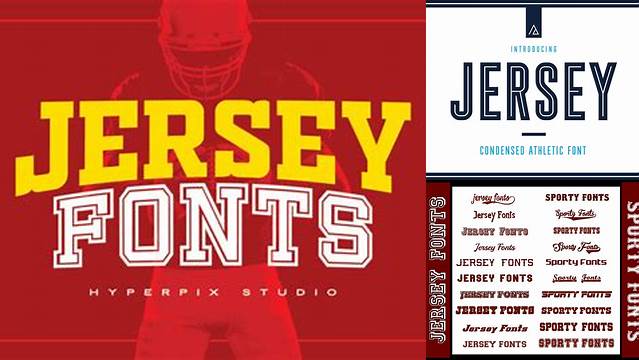
1. Best Free Jersey Fonts for Cricut
Alright guys, let’s dive into the world of free jersey fonts perfect for your Cricut projects! Finding the right font can really make your designs pop, especially when you’re personalizing jerseys, t-shirts, or even banners for your favorite sports team. When you are on the hunt for free jersey fonts, consider factors like readability, style, and whether the font includes all the characters you need. Many designers offer amazing fonts that capture the essence of athletic aesthetics without costing you a dime. Websites dedicated to free fonts often have a wide selection, but be sure to check the license terms before using them for commercial projects. Some fonts are free for personal use only, while others allow commercial use. Experimenting with different free jersey fonts can help you discover the perfect one that resonates with your creative vision. Don’t be afraid to mix and match styles to achieve a unique and personalized look. Using free jersey fonts means you can create stunning, professional-looking designs without breaking the bank. Whether you're crafting gifts, team apparel, or just expressing your sporty side, these fonts are an excellent resource. So get those Cricut machines fired up and let your imagination run wild with the plethora of free jersey fonts available at your fingertips!
2. Top 10 Free Jersey Number Fonts
Looking for the top 10 free jersey number fonts to give your designs that authentic athletic look? Well, you're in luck! Plenty of amazing fonts are available that perfectly mimic the style of traditional sports jerseys. These fonts often feature bold, blocky designs that are easy to read from a distance, making them ideal for jerseys, posters, and other sports-related projects. When selecting from the top 10 free jersey number fonts, consider the overall aesthetic you're aiming for. Do you want something classic and timeless, or something more modern and edgy? Many websites offer previews of the fonts, allowing you to see how they look with different numbers and letters. Also, be sure to check the licensing terms to ensure you can use the fonts for your intended purpose. Some fonts may be free for personal use only, while others allow commercial use. Some of the top 10 free jersey number fonts include options with rounded edges for a softer look, as well as fonts with sharp, angular lines for a more aggressive feel. Don't hesitate to download a few different fonts and experiment to see which one best suits your project. With a little bit of searching, you're sure to find the top 10 free jersey number fonts that will give your designs the perfect touch of sporty authenticity. Enjoy exploring all the possibilities and creating eye-catching designs with these fantastic fonts!
3. Free Varsity Fonts for Jersey Design
When it comes to free varsity fonts for jersey design, you’ve got a fantastic array of options that can add a classic, sporty touch to your projects. Varsity fonts are characterized by their bold, block-like appearance, often with serifs or slab serifs that enhance their vintage feel. These fonts are perfect for creating designs that evoke the spirit of high school and college athletics. Finding free varsity fonts means you can achieve a professional look without spending a fortune. Many websites offer a variety of varsity fonts that you can download and use for personal or commercial projects, but always double-check the licensing terms to be sure. When selecting from the free varsity fonts available, think about the overall style you want to achieve. Do you want a font that is clean and modern, or something with a more distressed, retro vibe? Consider the colors you'll be using in your design as well, as some fonts may look better with certain color combinations. It’s also a good idea to test out the font with different words and phrases to see how it looks at various sizes. Using free varsity fonts is a great way to add a touch of nostalgia and athletic flair to your jersey designs. So, explore the available options, experiment with different styles, and create something truly unique!
8. Using Jersey Fonts in Photoshop
Using jersey fonts in Photoshop can really make your designs pop! Whether you're creating sports posters, customizing team logos, or designing apparel mockups, the right font can give your work that authentic athletic look. First things first, make sure you've downloaded and installed your free jersey fonts on your computer. Once they're installed, Photoshop should automatically recognize them. To use the fonts, open Photoshop and create a new document or open an existing one. Select the Type Tool (the “T” icon) and click on your canvas to create a text layer. Then, in the Character panel (Window > Character), you can choose your jersey font from the font dropdown menu. If you don't see the font, try restarting Photoshop; sometimes it needs a little nudge to recognize newly installed fonts. Experiment with different font sizes, colors, and styles to get the perfect look for your design. You can also add effects like drop shadows, strokes, and gradients to further enhance your text. Another cool trick is to use layer masks and clipping masks to integrate your text with other elements in your design. This can create some really awesome and dynamic effects. With the right free jersey fonts and a little bit of creativity, you can create stunning sports-themed designs in Photoshop that will impress everyone!
9. Using Jersey Fonts in Illustrator
Using jersey fonts in Illustrator is a fantastic way to add a sporty and dynamic feel to your designs. Whether you're creating logos, posters, or apparel graphics, the right font can make all the difference. First, make sure you have downloaded and installed your free jersey fonts on your computer. Once installed, Illustrator should automatically recognize them. To use the fonts, open Illustrator and create a new document or open an existing one. Select the Type Tool (the “T” icon) and click on your artboard to create a text object. Then, in the Character panel (Window > Type > Character), you can choose your jersey font from the font dropdown menu. If you don't see the font, try restarting Illustrator; sometimes it needs a little refresh to recognize newly installed fonts. With Illustrator, you have a lot of flexibility in how you can manipulate your text. You can easily change the font size, color, and spacing to achieve the perfect look. You can also use the Create Outlines feature (Type > Create Outlines) to convert your text into vector shapes. This allows you to further customize the text by editing the individual points and curves. You can add gradients, patterns, and effects to your text to make it even more visually appealing. Using free jersey fonts in Illustrator opens up a world of possibilities for creating unique and eye-catching sports-themed designs!
10. Best Jersey Font Generators Online
When you're looking to whip up some cool jersey designs quickly, the best jersey font generators online can be a real lifesaver. These tools let you create custom text with a sporty, athletic vibe without needing to install any fonts on your computer. Many free jersey fonts generators offer a range of styles, from classic varsity looks to more modern, edgy designs. Some generators even allow you to customize the colors, sizes, and spacing of the letters, giving you a lot of control over the final result. To use a jersey font generator, simply visit the website, type in your text, and choose your desired font style and settings. The generator will then create an image of your text, which you can download and use in your designs. While these generators are convenient, keep in mind that the quality and variety of fonts may vary. Some generators may offer only a limited selection of fonts, and the output may not be as high-resolution as using a dedicated font in design software like Photoshop or Illustrator. However, for quick mockups and social media graphics, the best jersey font generators online can be a great option. So, if you need to create a jersey-inspired design in a hurry, give one of these generators a try and see what you can come up with!
11. Free Distressed Jersey Fonts
For those seeking a vintage, worn-in aesthetic, free distressed jersey fonts are an excellent choice. These fonts mimic the look of aged and weathered lettering, adding character and authenticity to your designs. Distressed fonts are perfect for creating a retro sports vibe or adding a touch of grunge to your projects. Finding free distressed jersey fonts is easier than you might think. Many websites offer a variety of fonts with varying degrees of distress, from subtle textures to more pronounced cracks and fading. When selecting a distressed font, consider the overall style you want to achieve. A lightly distressed font can add a subtle touch of character, while a heavily distressed font can create a more dramatic, vintage look. Also, think about the colors you'll be using in your design. Distressed fonts often look great with muted or earthy tones, which enhance the vintage feel. It's also a good idea to test out the font with different words and phrases to see how the distress effects look at various sizes. Using free distressed jersey fonts is a fantastic way to add a unique and eye-catching element to your jersey designs. So, explore the available options, experiment with different styles, and create something truly memorable!
12. Modern Free Jersey Fonts
If you're aiming for a sleek and contemporary look, modern free jersey fonts are the way to go. These fonts offer a fresh take on the classic athletic aesthetic, with clean lines, geometric shapes, and a minimalist feel. Modern jersey fonts are perfect for creating designs that are both sporty and stylish. Finding modern free jersey fonts allows you to achieve a cutting-edge look without spending a fortune. Many websites offer a variety of fonts that capture the essence of modern design. When selecting a modern font, consider the overall style you want to achieve. Do you want a font that is bold and impactful, or something more subtle and understated? Think about the colors you'll be using in your design as well, as some fonts may look better with certain color combinations. It's also a good idea to test out the font with different words and phrases to see how it looks at various sizes. Using modern free jersey fonts is a great way to add a touch of sophistication and contemporary flair to your jersey designs. So, explore the available options, experiment with different styles, and create something truly unique!
13. How to Customize Free Jersey Fonts
Customizing free jersey fonts is a great way to make your designs truly unique. While you might start with a free font, tweaking it to fit your specific needs can elevate your work to the next level. One of the easiest ways to customize a font is to adjust its size, spacing, and color. Most design software, like Photoshop and Illustrator, allows you to easily modify these properties. You can also add effects like drop shadows, outlines, and gradients to further enhance the look of the font. For more advanced customization, you can convert the font into vector outlines. This allows you to edit the individual shapes and curves of the letters, giving you complete control over the design. You can reshape the letters, add new elements, or even combine different fonts to create a completely custom typeface. However, keep in mind that modifying a font too much can sometimes affect its readability. So, it's important to strike a balance between customization and functionality. Using free jersey fonts as a starting point and then customizing them to your liking is a fantastic way to create a personalized and professional look for your designs!
14. Free Jersey Fonts for Commercial Use
Finding free jersey fonts for commercial use can be a game-changer for designers and businesses. Using fonts without the proper license can lead to legal trouble, so it's essential to ensure that the fonts you use are indeed free for commercial purposes. Many websites offer free jersey fonts, but not all of them allow commercial use. Always check the license agreement before using a font in a project that you intend to sell or use for business purposes. Some fonts may be free for personal use only, while others allow commercial use with certain restrictions. Some common types of licenses for free jersey fonts include the SIL Open Font License (OFL) and Creative Commons licenses. The OFL allows you to use, modify, and distribute the font freely, even for commercial purposes. Creative Commons licenses may have different terms, so be sure to read the specific license agreement for each font. When in doubt, it's always best to contact the font designer or website to clarify the terms of use. Using free jersey fonts for commercial use can save you money and allow you to create professional-quality designs without worrying about copyright issues!
15. Free Jersey Fonts for Personal Use
When you're working on personal projects, finding free jersey fonts for personal use is a fantastic way to add a sporty touch to your creations without breaking the bank. Personal use fonts are typically free to download and use for non-commercial purposes, such as creating invitations, posters, or gifts for friends and family. Many websites offer a wide variety of free jersey fonts that are perfect for personal use. These fonts can range from classic varsity styles to more modern and unique designs. When downloading fonts for personal use, it's still important to check the license agreement. Some fonts may have restrictions on how you can use them, even for personal projects. For example, some fonts may not allow you to modify or redistribute them. However, most free jersey fonts for personal use are fairly flexible and can be used in a wide range of projects. So, if you're looking to add a sporty and personalized touch to your next creative endeavor, be sure to explore the many options available for free!
16. Best Practices for Using Jersey Fonts
Using jersey fonts effectively can really elevate your designs, but there are some best practices to keep in mind. First and foremost, consider the readability of the font. While some free jersey fonts may look cool and stylish, they might not be the easiest to read, especially at smaller sizes. Choose a font that is clear and legible, even from a distance. Another important factor is the context of your design. A jersey font that looks great on a sports poster might not be the best choice for a formal invitation. Think about the overall tone and message of your design and choose a font that complements it. Also, pay attention to the spacing and kerning of the font. Adjusting the spacing between letters can significantly improve readability and visual appeal. Avoid using too many different fonts in a single design. Sticking to two or three complementary fonts can create a more cohesive and professional look. Finally, always respect the font's license agreement. Make sure you have the right to use the font for your intended purpose, whether it's for personal or commercial use. By following these best practices, you can ensure that your jersey fonts look their best and effectively communicate your message!
17. Pairing Jersey Fonts with Other Fonts
Pairing jersey fonts with other fonts can be a fun way to create unique and visually appealing designs. The key is to find fonts that complement each other and create a harmonious balance. Since jersey fonts often have a bold and sporty feel, it's a good idea to pair them with fonts that are more subtle and understated. For example, you could pair a classic varsity font with a clean sans-serif font for a modern and balanced look. Another approach is to use a serif font for headings and a sans-serif font for body text. This can create a clear visual hierarchy and improve readability. When pairing jersey fonts with other fonts, consider the overall style and tone of your design. If you're creating a vintage-inspired design, you might want to pair a distressed jersey font with a classic serif font. If you're creating a more modern design, you could pair a sleek sans-serif jersey font with a minimalist sans-serif font. Experiment with different font combinations to see what works best for your project. Don't be afraid to try unexpected pairings, but always make sure that the fonts are visually compatible and create a cohesive look. Finding the right font pairings can take your designs to the next level!
18. Jersey Fonts for Team Logos
When designing team logos, the right font can make all the difference. Jersey fonts are a popular choice for team logos because they convey a sense of athleticism, tradition, and camaraderie. A well-chosen font can help to create a logo that is both memorable and effective. When selecting jersey fonts for team logos, consider the overall style and personality of the team. A classic varsity font might be a good choice for a traditional sports team, while a more modern and edgy font might be better suited for a team with a more contemporary image. It's also important to consider the readability of the font. The logo should be easily recognizable, even at small sizes. Choose a font that is clear and legible, and avoid using overly complex or decorative fonts. In addition to the font itself, the colors and layout of the logo can also play a significant role in its success. Use colors that are consistent with the team's brand and create a layout that is visually appealing and easy to understand. By carefully considering these factors, you can create a team logo that is both professional and memorable.
19. Jersey Fonts for Sports Apparel
Jersey fonts for sports apparel are a crucial element in creating visually appealing and professional-looking uniforms. The right font can enhance the overall design and make the apparel stand out. When selecting jersey fonts, it's important to consider the readability, durability, and style of the font. The font should be easy to read from a distance, even when printed on fabric. It should also be durable enough to withstand repeated washing and wearing. In terms of style, the font should complement the overall design of the apparel and reflect the team's identity. Classic varsity fonts are a popular choice for sports apparel, but there are also many other options to choose from, including modern sans-serif fonts and distressed fonts. It's also important to consider the size and placement of the font on the apparel. The font should be large enough to be easily visible, but not so large that it overwhelms the design. The placement of the font should also be strategic, taking into account the overall layout of the apparel. By carefully considering these factors, you can create sports apparel that is both functional and visually appealing.
20. Free Jersey Fonts for Numbers and Letters
When you're on the hunt for free jersey fonts for numbers and letters, you want to make sure you find options that are both stylish and easy to read. After all, whether you're designing a sports team's jerseys or creating personalized gifts, the font you choose can make all the difference. Luckily, there are plenty of free resources available that offer a variety of jersey-style fonts suitable for both numbers and letters. One thing to keep in mind when selecting a font is its legibility. While some fonts may look cool and trendy, they might not be the best choice if they're difficult to read, especially from a distance. Opt for fonts that have clear, well-defined shapes and consistent spacing between characters. Another factor to consider is the overall aesthetic of the font. Do you want something classic and traditional, or something more modern and edgy? There are free jersey fonts to suit every taste, so take your time and explore your options. Some fonts may be specifically designed for numbers, while others are better suited for letters. Look for fonts that offer a consistent style across both numbers and letters to ensure a cohesive and professional look. With a little bit of searching, you can find the perfect free jersey fonts for numbers and letters to bring your designs to life!
21. How to Create Your Own Jersey Font
If you're feeling creative, why not try to create your own jersey font? While it may seem like a daunting task, with the right tools and techniques, it's definitely achievable. Creating your own font allows you to express your unique style and create designs that are truly one-of-a-kind. The first step is to choose a font creation software. There are many options available, ranging from free open-source programs to professional-grade software. Once you have your software set up, you can start designing the individual characters of your font. Start with the basic letters and numbers, and then move on to more complex characters and symbols. Pay attention to the spacing and kerning between characters to ensure that the font is easy to read. You can also experiment with different styles and effects to give your font a unique look. Once you're satisfied with your design, you can export the font in a format that can be used in design software like Photoshop and Illustrator. Creating your own free jersey fonts can be a challenging but rewarding experience. It allows you to unleash your creativity and create designs that are truly your own!
22. The Psychology of Jersey Fonts in Design
Ever thought about the psychology of jersey fonts in design? It's more than just picking something that looks cool! The font you choose can actually influence how people perceive your design and the message it conveys. Jersey fonts, with their bold and sporty aesthetic, often evoke feelings of energy, excitement, and teamwork. They can create a sense of nostalgia and connect with people's memories of sports and athletic achievements. When used in the right context, jersey fonts can be incredibly effective in capturing attention and creating a strong emotional connection with the audience. However, it's important to consider the overall tone and message of your design when choosing a font. A jersey font might not be the best choice for a formal or elegant design, as it can come across as too casual or informal. On the other hand, it can be perfect for designs that are meant to be fun, energetic, and engaging. The psychology of jersey fonts in design is all about understanding the emotional impact of different fonts and using them strategically to achieve your desired effect. By carefully considering the context and audience of your design, you can choose a font that effectively communicates your message and creates a lasting impression.
23. Common Mistakes to Avoid When Using Jersey Fonts
Using jersey fonts can be a great way to add a sporty and dynamic feel to your designs, but it's important to avoid some common mistakes that can detract from the overall impact. One of the most common mistakes is using too many different fonts in a single design. Sticking to two or three complementary fonts can create a more cohesive and professional look. Another mistake is using jersey fonts in inappropriate contexts. While they're perfect for sports-related designs, they might not be the best choice for more formal or elegant designs. It's also important to pay attention to the readability of the font. Some free jersey fonts may look cool and stylish, but they might not be the easiest to read, especially at smaller sizes. Choose a font that is clear and legible, even from a distance. Another mistake to avoid is using too much ornamentation or effects on the font. Keep it simple and clean to ensure that the font is easy to read and doesn't overwhelm the design. Finally, always respect the font's license agreement. Make sure you have the right to use the font for your intended purpose, whether it's for personal or commercial use. By avoiding these common mistakes, you can ensure that your jersey fonts look their best and effectively communicate your message!
24. The Future of Jersey Fonts in Graphic Design
What does the future of jersey fonts in graphic design hold? As design trends continue to evolve, we can expect to see jersey fonts adapt and innovate in new and exciting ways. One trend that is likely to continue is the use of variable fonts. Variable fonts allow designers to adjust various parameters of the font, such as weight, width, and slant, to create a wide range of styles from a single font file. This can be particularly useful for jersey fonts, as it allows designers to create customized looks that perfectly match the style of their design. Another trend that is likely to influence the future of jersey fonts is the rise of 3D and augmented reality (AR) design. As designers create more immersive and interactive experiences, they will need fonts that can work seamlessly in these environments. This could lead to the development of new jersey fonts that are specifically designed for 3D and AR applications. Finally, we can expect to see more experimentation with unique and unconventional styles. Designers will continue to push the boundaries of what's possible with jersey fonts, creating new and innovative designs that capture the energy and excitement of sports.
25. Resources for Learning More About Typography
If you're interested in learning more about typography, there are tons of resources available to help you expand your knowledge and skills. Whether you're a beginner or an experienced designer, there's always something new to learn about the art and science of type. One great resource is online courses and tutorials. Websites like Skillshare, Udemy, and Coursera offer a wide range of courses on typography, covering everything from the basics of font anatomy to advanced techniques for font pairing and layout. Another valuable resource is books on typography. There are many excellent books available that delve into the history, theory, and practice of typography. Some popular titles include